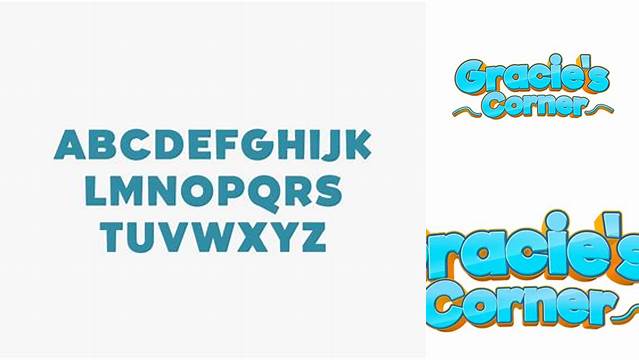
Gracie's Corner Font: Find Free Options & Similar Styles
Hey guys! Are you looking to add a touch of fun and playfulness to your designs? Then you might be on the hunt for a font that captures the vibrant and cheerful essence of Gracie's Corner. In this article, we'll dive into the world of Gracie's Corner font, exploring what makes it so special and how you can potentially get your hands on a font that embodies its spirit – for free! We'll discuss the characteristics of the font, where you might find similar styles, and crucial things to keep in mind regarding font licensing. So, buckle up and let's explore the exciting world of fonts inspired by Gracie's Corner!
What Makes Gracie's Corner Font So Appealing?
When we talk about the Gracie's Corner font, we're really talking about a style – a visual vibe that's instantly recognizable. Think bold, bright, and bubbly! The fonts often associated with Gracie's Corner are characterized by their playful and energetic nature. They typically feature rounded edges, thick strokes, and a generally friendly appearance. This makes them perfect for projects targeting children, such as birthday invitations, educational materials, and, of course, anything related to entertainment inspired by Gracie’s Corner. The appeal lies in its ability to evoke a sense of joy and excitement, making it a favorite among those looking to create visually engaging content for younger audiences. The use of vibrant colors often complements the font's playful design, further enhancing its appeal and creating a cohesive and eye-catching aesthetic. This makes the Gracie's Corner font ideal for capturing attention and conveying a sense of fun and energy. It's a design choice that speaks volumes about the intended audience and the overall tone of the message. The unique character shapes and overall design contribute to a memorable and impactful visual experience. The font's distinct personality helps to create a strong brand identity and ensures that the message resonates with its intended audience. This thoughtful approach to typography is a key element in the success and popularity of the Gracie's Corner aesthetic. Think about the impact a well-chosen font can have – it's not just about the words, it's about the feeling they evoke! The right font can transform a simple message into a captivating visual experience. When considering fonts for your projects, remember the importance of aligning the font's personality with the overall message and target audience. A font that effectively communicates the desired tone and style can significantly enhance the impact of your design. The playful and energetic characteristics associated with Gracie's Corner's font style make it a versatile choice for a wide range of applications, from digital graphics to print materials. Its ability to capture attention and create a sense of fun makes it an invaluable asset for designers and creators. The carefully crafted design ensures that the font remains legible and visually appealing, even in various sizes and formats. This versatility is a testament to the thought and care that goes into creating a memorable and effective typeface. In addition to its visual appeal, the Gracie's Corner font style also conveys a sense of warmth and approachability. Its rounded edges and friendly letterforms create an inviting and welcoming atmosphere, making it an excellent choice for projects aimed at building connections and fostering positive relationships. This combination of playfulness and warmth is what sets this font style apart and makes it a popular choice for a variety of creative endeavors.
Finding Free Fonts Similar to Gracie's Corner
Okay, so finding the exact Gracie's Corner font for free might be a challenge, as many commercial fonts are proprietary. However, the good news is that there are tons of fantastic free fonts out there that capture a similar vibe! We're talking about fonts that are equally bold, bubbly, and full of character. Websites like Google Fonts, DaFont, and Font Squirrel are treasure troves of free fonts. You can easily search for keywords like “bubble font,” “cartoon font,” “display font,” or “kids font” to discover a wide array of options. When browsing, pay attention to the font's overall shape, thickness, and the presence of rounded edges. These are key characteristics that contribute to the playful and energetic feel we associate with the Gracie's Corner style. Don't be afraid to experiment and try out different fonts to see what works best for your specific project. Keep in mind that font pairing is also crucial. Consider pairing your chosen font with a simpler, more legible font for body text to ensure readability and visual balance. The goal is to create a cohesive and harmonious design that effectively communicates your message. Remember, the perfect font is out there – it just takes a little bit of searching and experimentation to find it! The joy of discovering a new font that perfectly matches your vision is truly rewarding. So, dive into the world of typography and explore the countless possibilities that await you. The internet is a vast resource for free fonts, but it's essential to exercise caution and ensure that you are downloading fonts from reputable sources. This will help protect your computer from malware and ensure that you are adhering to copyright laws. Before downloading any font, take the time to read the license agreement carefully to understand the terms of use. This will help you avoid any potential legal issues and ensure that you are using the font in accordance with the creator's wishes. The font community is a vibrant and supportive network of designers and enthusiasts who are passionate about typography. There are numerous online forums and communities where you can connect with fellow font lovers, share your work, and learn from others. Engaging with the font community can be a great way to expand your knowledge and appreciation of typography. You can discover new fonts, learn about design trends, and get feedback on your own font choices. The font landscape is constantly evolving, with new and innovative typefaces being created every day. Staying up-to-date with the latest trends and developments in typography can help you keep your designs fresh and engaging. Explore different font styles, experiment with font pairings, and challenge yourself to push the boundaries of your creativity. Typography is a powerful tool that can significantly impact the overall aesthetic and effectiveness of your designs. By understanding the nuances of font selection and usage, you can elevate your work and create truly memorable and impactful visual experiences.
Alternatives to Downloading: Font Generators
Another cool option, especially if you're looking for a specific word or phrase in a Gracie's Corner-esque style, is to use a font generator! There are many online tools that allow you to type in your text and then generate an image with various font styles. While these generators don't give you a downloadable font file, they can be perfect for creating eye-catching headings, logos, or social media graphics. Just search for “online font generator” and you'll find a plethora of options. Many of these generators offer a wide range of styles, including those that mimic the bold and playful aesthetic of Gracie's Corner. You can experiment with different fonts, colors, and effects to create a unique and visually appealing design. Font generators are a great way to quickly create custom text graphics without having to install any fonts on your computer. This can be especially useful if you're working on a project that requires a specific font style but you don't have the font installed or you're not sure about the licensing terms. However, it's important to note that the images generated by these tools are typically raster-based, which means they may lose quality when scaled up. If you need a scalable graphic, it's best to use a vector-based design program and create the text using a font file. Another consideration is that the font styles available in online generators may not always be licensed for commercial use. If you're planning to use the generated image for a business or commercial project, it's crucial to check the terms of use of the font generator and ensure that you have the necessary permissions. In some cases, you may need to purchase a commercial license for the font used in the generated image. Despite these limitations, font generators can be a valuable tool for creating quick and easy text graphics for a variety of purposes. They offer a convenient way to experiment with different font styles and create visually appealing designs without the need for specialized software or design skills. Many font generators also offer customization options, such as the ability to adjust the font size, color, and background. This allows you to fine-tune the design and create a graphic that perfectly matches your vision. Font generators are a great resource for anyone looking to add a touch of visual flair to their projects. Whether you're creating a social media post, a website header, or a presentation slide, a well-designed text graphic can help you capture attention and convey your message effectively. The ease of use and versatility of font generators make them a popular choice for both amateur and professional designers. With a little experimentation, you can create stunning text graphics that will elevate your designs and make them stand out from the crowd.
Final Thoughts on Gracie's Corner Font and Finding Free Options
So, while you might not find an exact “Gracie's Corner font free” download, the spirit of that fun, bold aesthetic is definitely achievable! Remember to explore free font websites, use keywords to guide your search, and, most importantly, always check the font license before using it. You can also leverage online font generators for quick and easy text graphics. With a little creativity and attention to detail, you can capture the playful essence of Gracie's Corner in your own projects. Happy designing, everyone! And remember, the world of fonts is vast and exciting – there's always something new to discover! The key is to find fonts that not only look good but also effectively communicate the message and tone of your design. Typography is an integral part of the overall design process, and choosing the right font can make a significant impact on the final result. Don't be afraid to experiment with different font styles and pairings to find the perfect combination for your project. Consider the target audience, the context of the design, and the overall brand identity when making your font choices. A well-chosen font can enhance the readability, visual appeal, and overall effectiveness of your design. The world of typography is constantly evolving, with new fonts and trends emerging regularly. Staying up-to-date with the latest developments in typography can help you keep your designs fresh and engaging. Explore different font styles, attend design conferences, and read typography blogs to expand your knowledge and appreciation of typography. The more you learn about typography, the better equipped you'll be to make informed font choices and create stunning designs. Remember, typography is not just about choosing a pretty font – it's about using type effectively to communicate your message and create a positive user experience. Consider factors such as font size, line height, and letter spacing to ensure readability and visual hierarchy. Pay attention to the details and strive for excellence in all aspects of your typography. In conclusion, finding the perfect font is an art and a science. It requires a combination of creativity, technical knowledge, and attention to detail. By exploring the vast world of fonts, understanding font licensing, and experimenting with different styles and pairings, you can master the art of typography and create designs that are both visually appealing and highly effective. So, go forth and explore the world of fonts – the possibilities are endless!